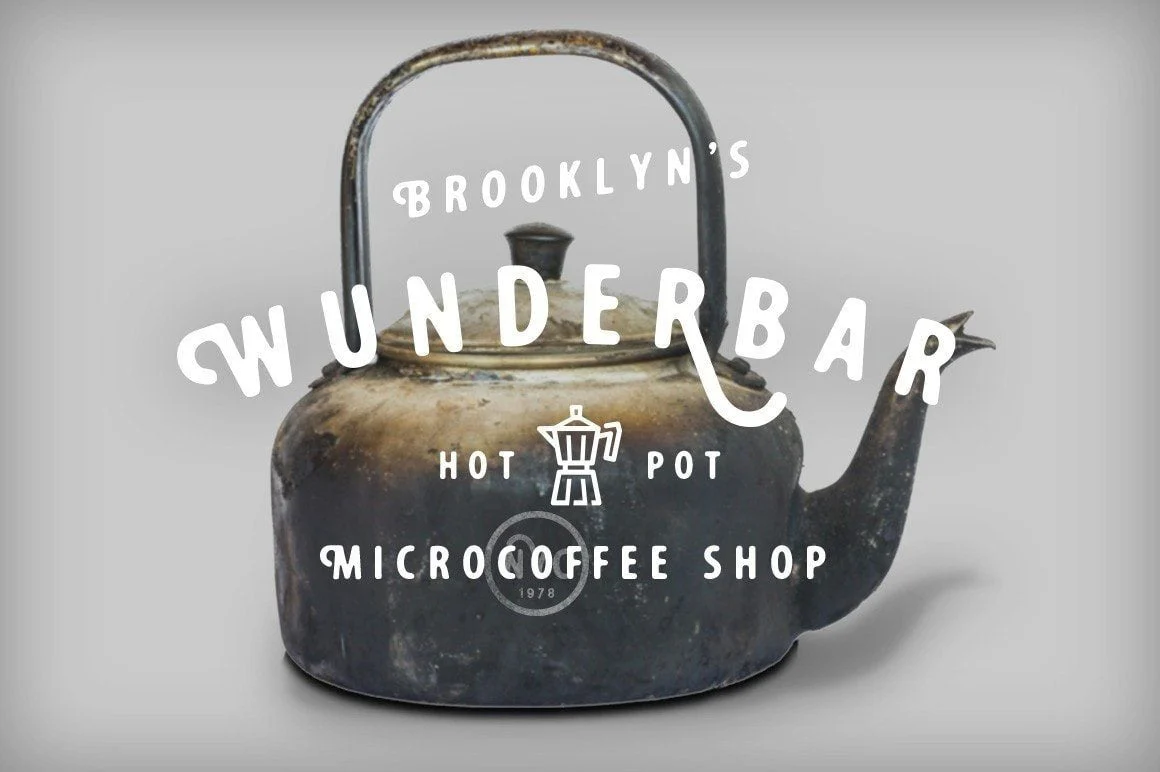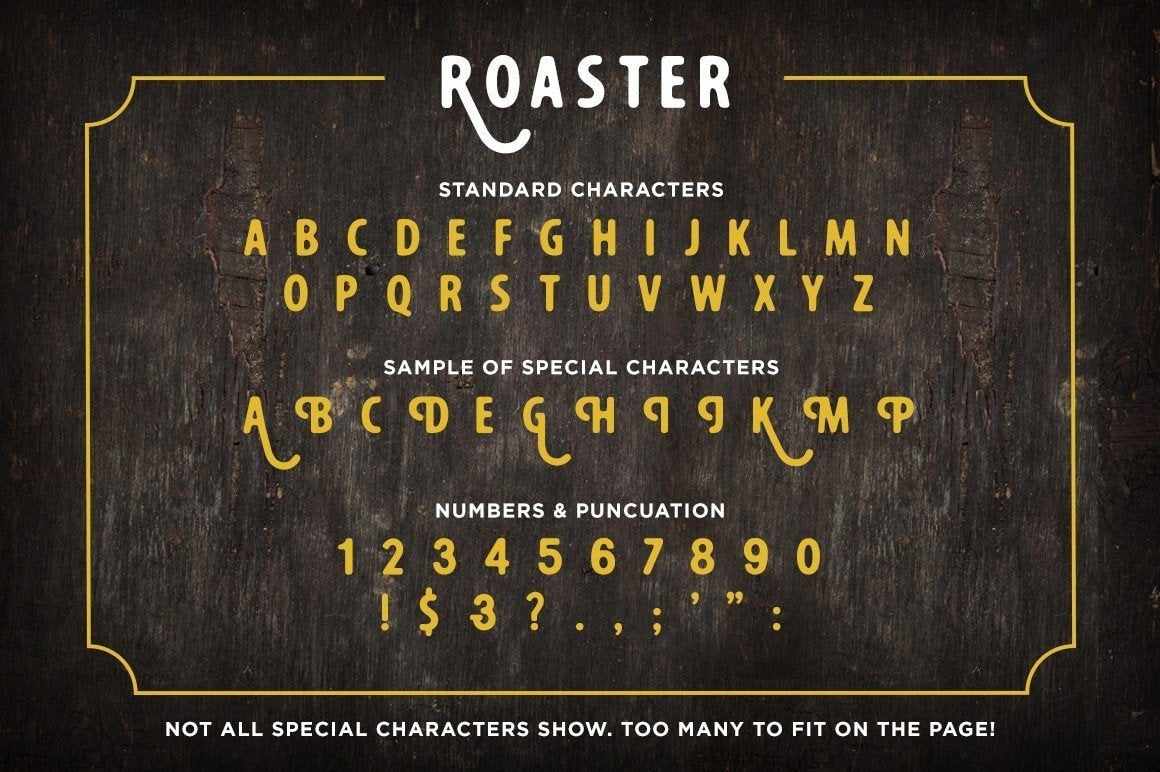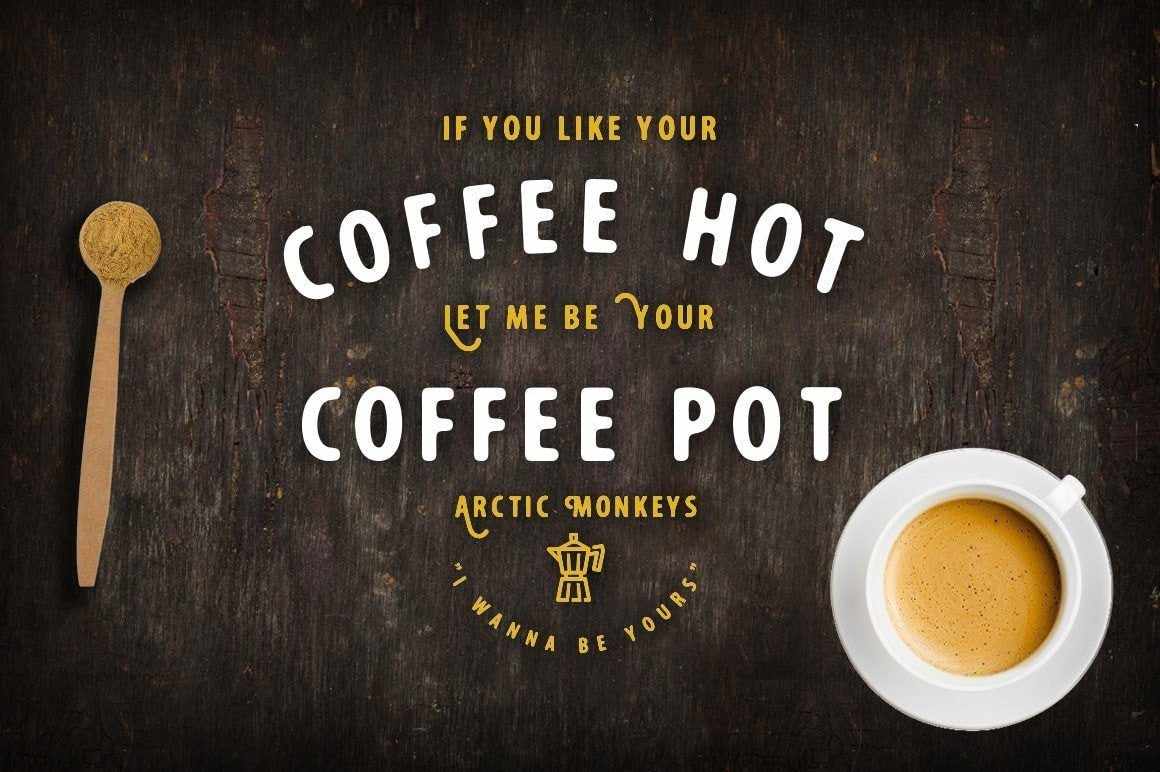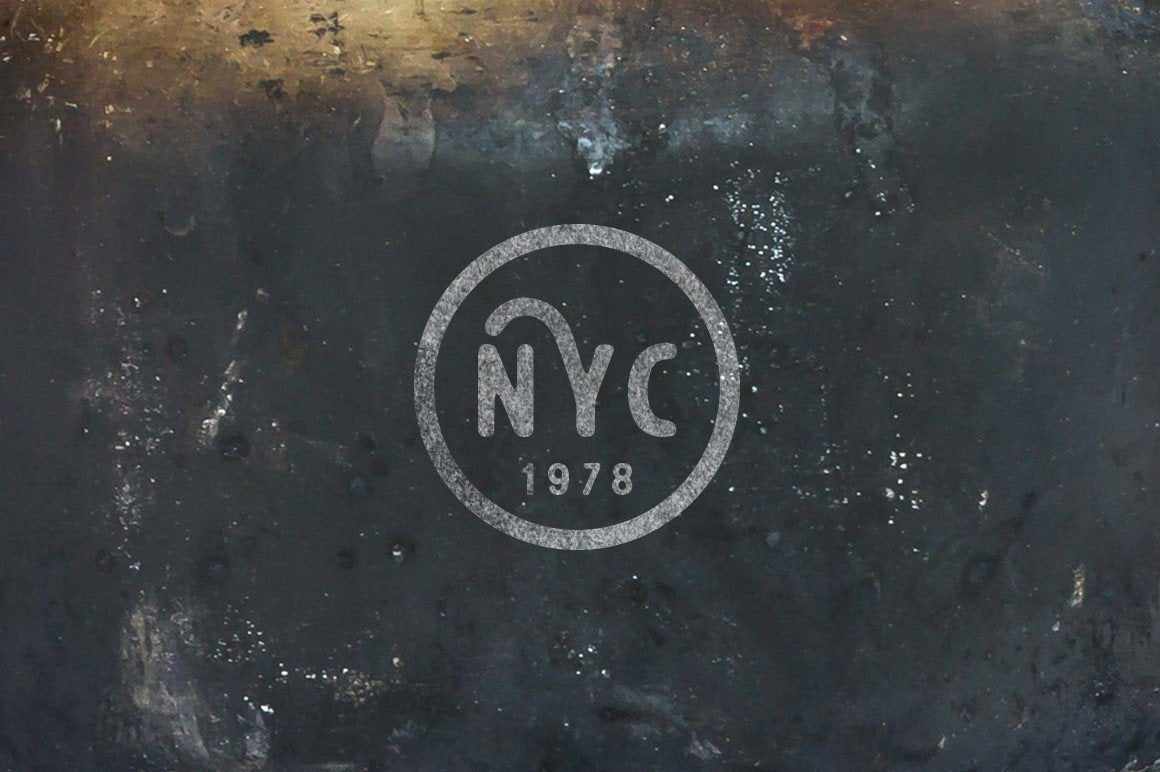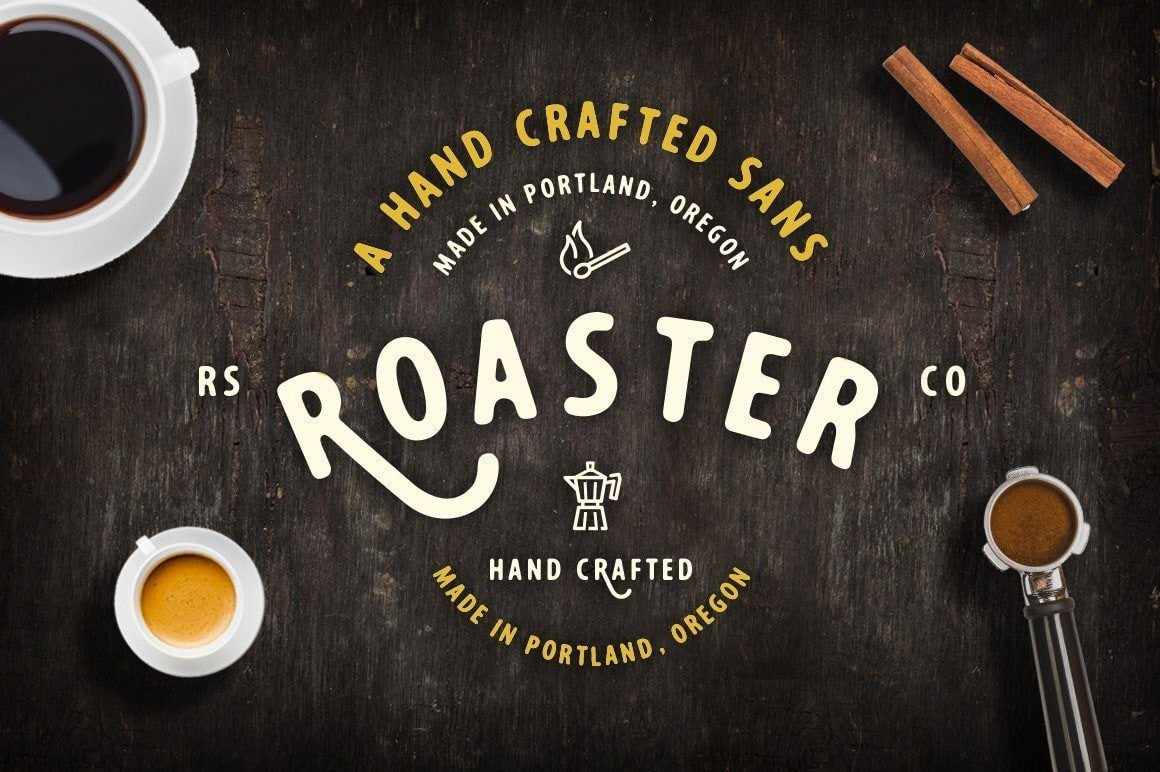
Like sweet, fresh roasted espresso poured into a warmed ceramic cup in the early morning.
Roaster has a rounded, hand crafted flavor with lots of alternatives. A perfect font pair for branding and headings.
Try Roaster for:
- Branding the new coffee shop downtown
- Labeling your home brewed porter
- Designing a package for gourmet marshmallows
- Anything that needs a warm, hand crafted feel.
Roaster is a 2 font mono weight family with plenty of alternative long stemmed characters. These 2 fonts make it effortless to create hand made lettering.
- Includes dozens of alternative stems and letter flourishes